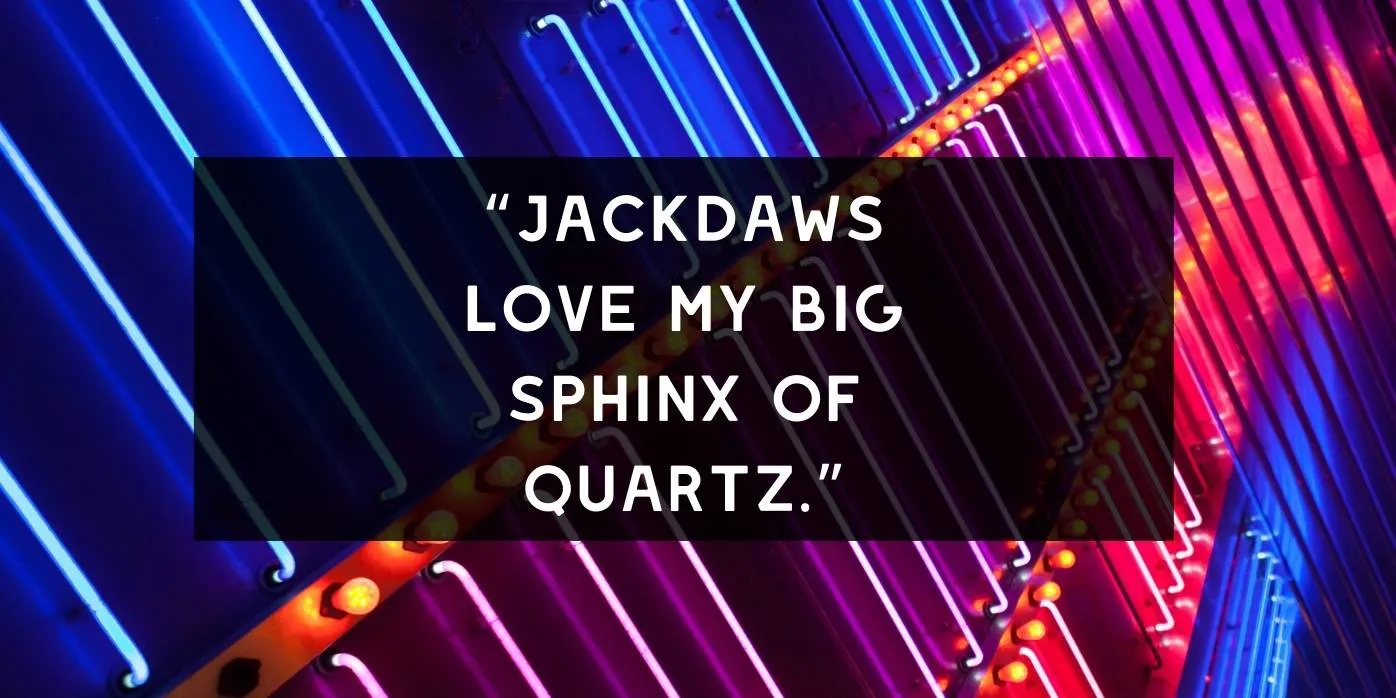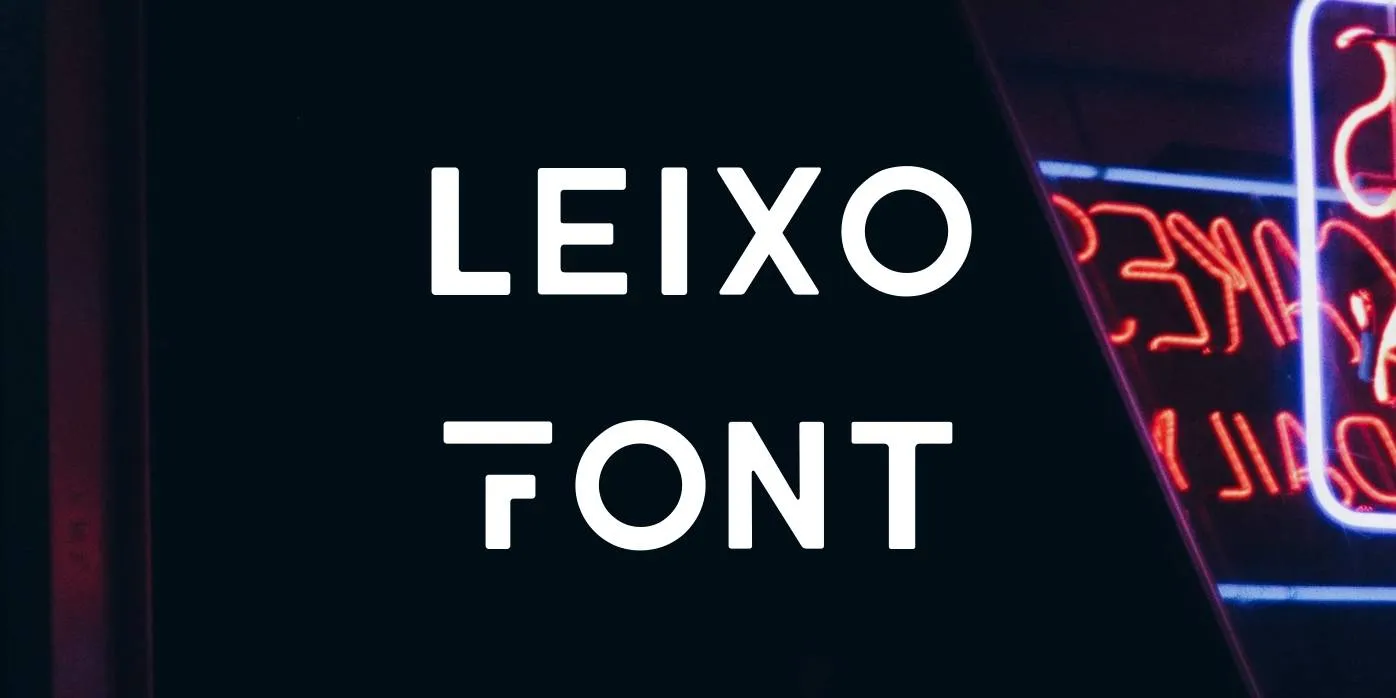
Leixo Font
Today, we present a very famous and stunning font that goes by the name Leixo Font. It is designed by Shaped Fonts. It belongs to the display typeface family.  This cute font is a great choice for those who are looking for a stylish and modern font. It is perfect for headlines, logos, and any other design that needs to be eye-catching.
This tremendous Font is available in both regular and italic styles and comes in two different weights. There is also a variety of different character sets available, so you can easily find the perfect one for your needs. Its copy and paste function is best for different designs. This typeface is best for Canva.
Its clean textures, combined with its sophisticated yet simple shapes, give Leixo Font a timeless quality that makes it perfect for any project. It is very famous because of its ligatures, which give it a luxurious and high-end look. You can use its similar Lego Font. So, if you are looking for a modern and stylish font that is perfect for any project, then use Leixo Font.